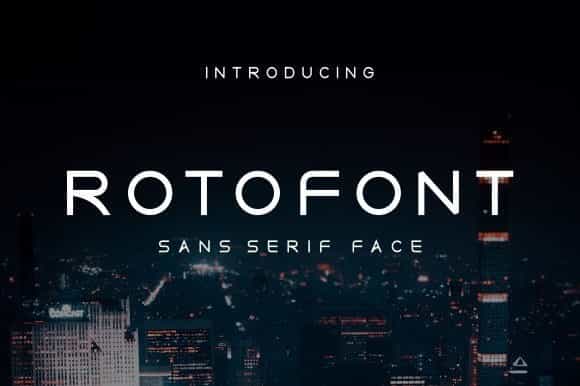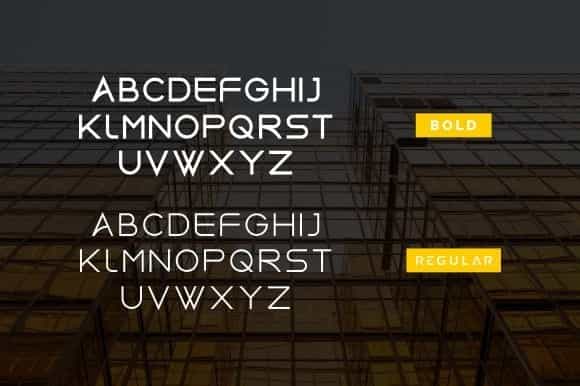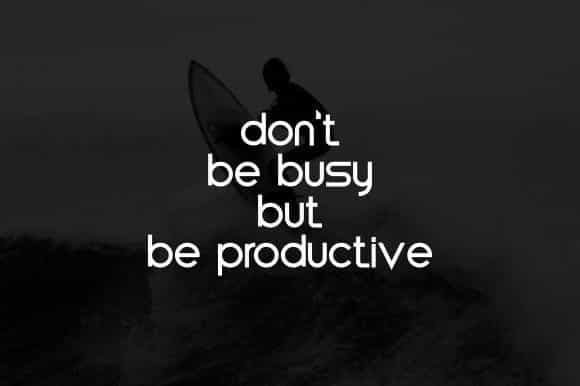
Roto is a new, geometric, sans-serif font family which was designed to look like the famous typefaces such as Futura and Avant-Garde. Roto is a big x-height value, geometrical letterforms, sharp edges and very small stroke contrast as the neo-grotesque fonts from the 20th Century. The font is multi-purpose and can be effectively used in Magazines, Posters, Branding, Websites etc.